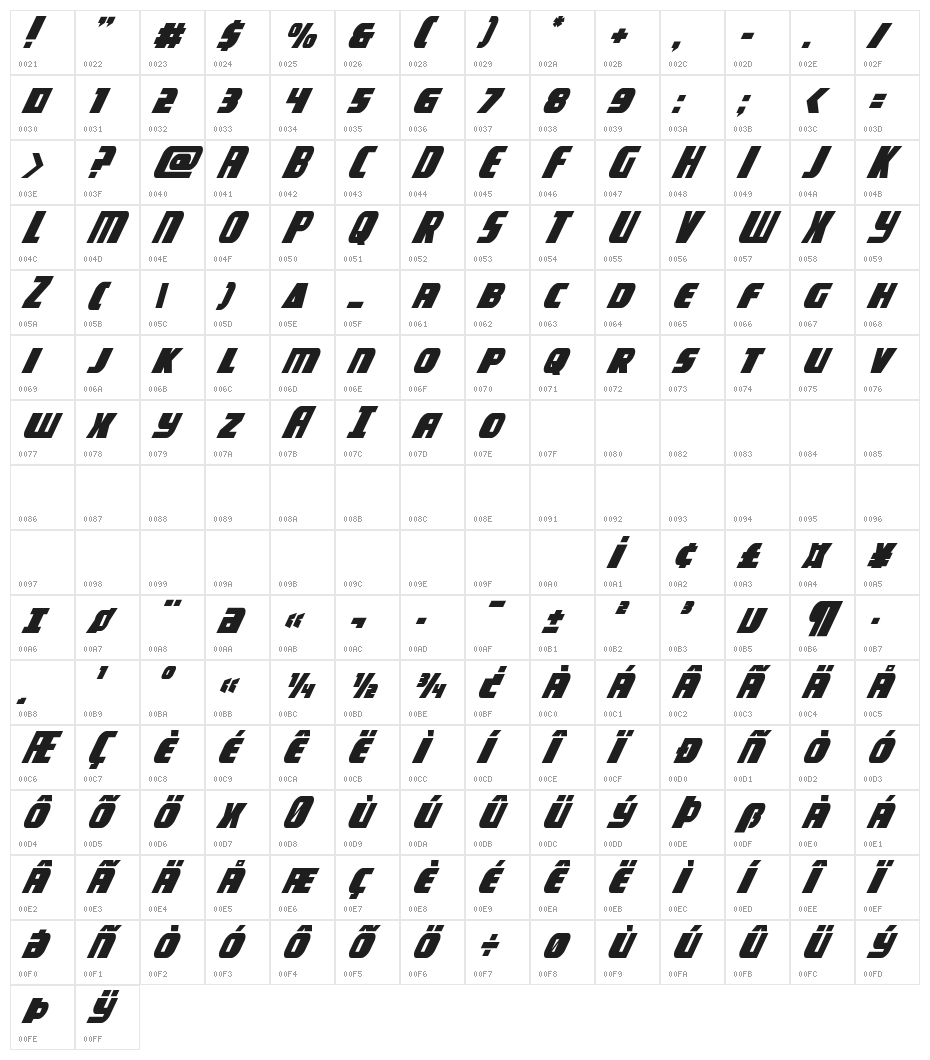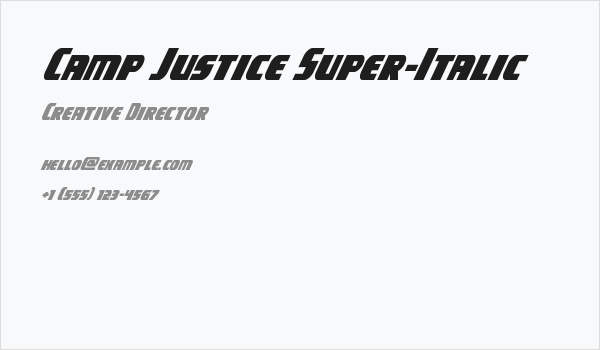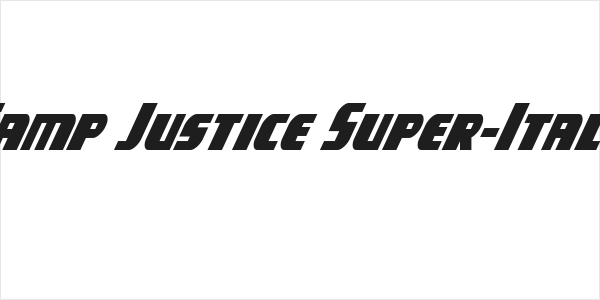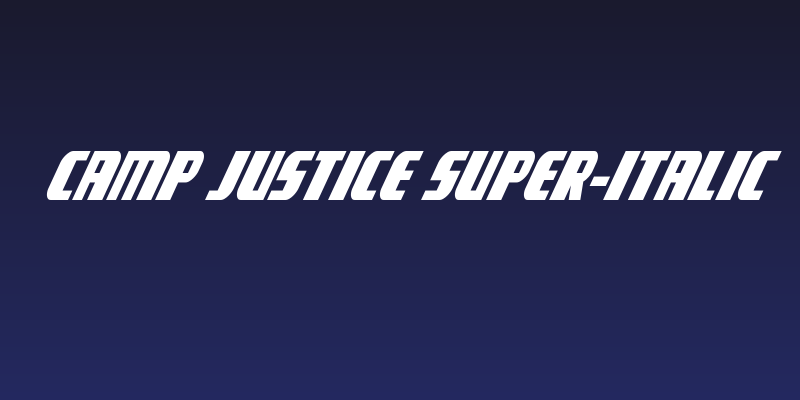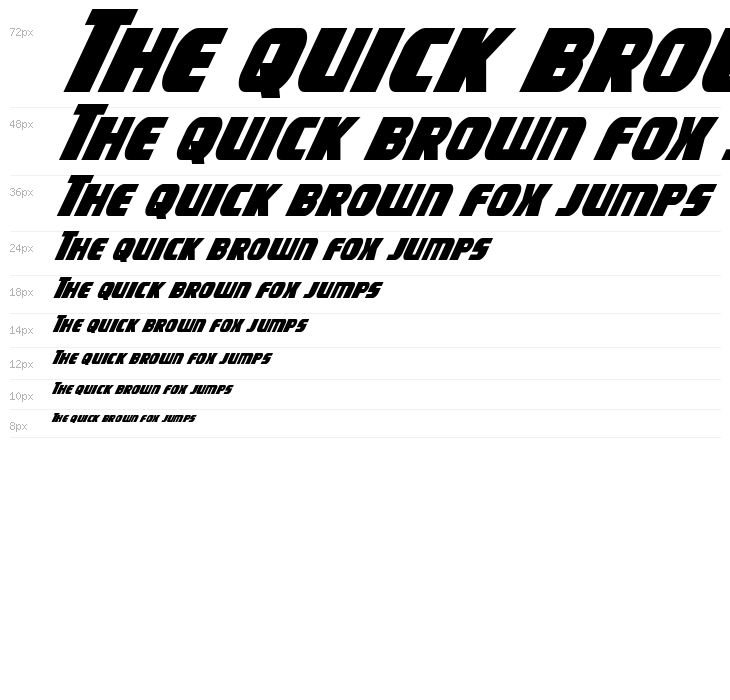
Camp Justice Super-Italic Font
Camp Justice Super-Italic Description
This font exhibits a bold and dynamic style with a strong italic slant, giving it a sense of motion and energy. The characters are wide and blocky, with sharp angles and a modern aesthetic. The uppercase and lowercase letters maintain a consistent style, ensuring readability while conveying a sense of urgency and power. The numbers and special characters follow the same design principles, making them suitable for impactful headlines or attention-grabbing designs. The font's boldness and slant make it ideal for projects that require a strong visual presence.
| Proposed Projects | Ideal for sports branding, action movie posters, dynamic advertisements, and bold headlines. |